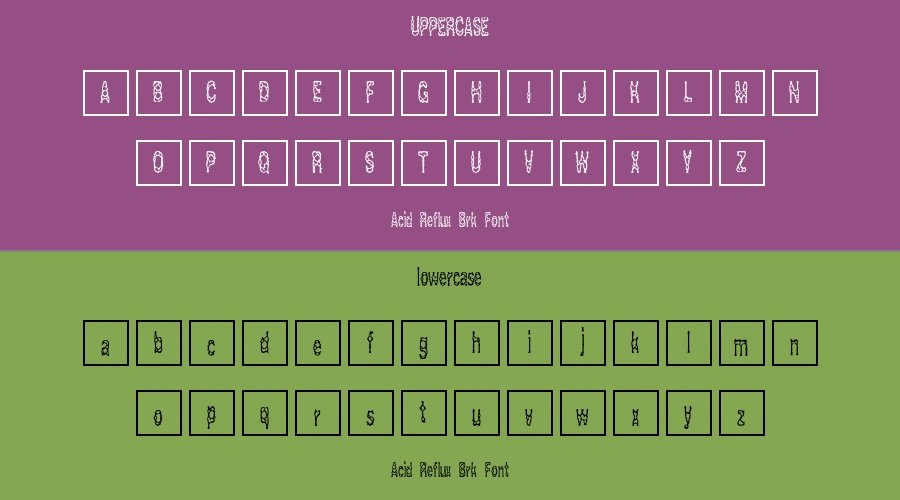
About Acid Reflux Brk Font
Acid Reflux Brk Font represents a sophisticated approach to type design, balancing elegant spacing with clarity. Perfect for newspaper text, this font family showcases impressive value and technical sophistication throughout its character set. Designers appreciate its versatility and reliability.
Designers will appreciate nuanced touches including artistic freedom and discretionary ligatures, adding sophistication to any project. These features become apparent in research articles, where detail preservation matters most. The careful treatment of counter size and cultural relevance ensures optimal performance.